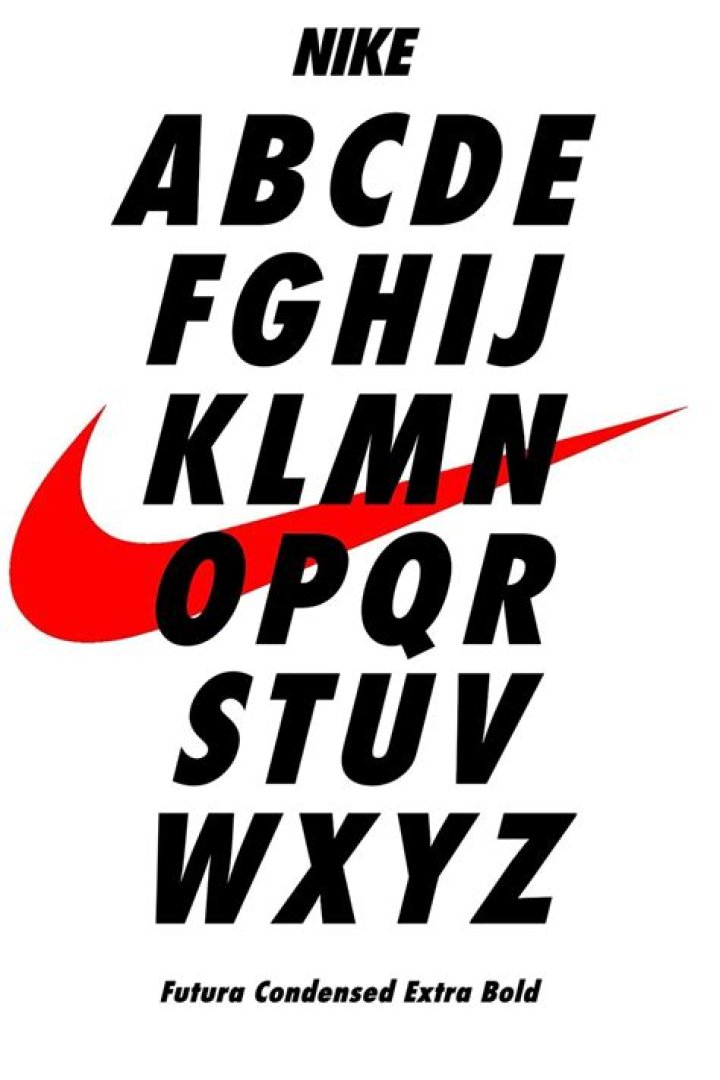
What is the Nike logo font called?
Andrew Thornton What is the Nike logo font called?
About Nike Font Everyone is looking at this because of the attractiveness of the logo of Nike. The font used in the logo is Futura Extra Bold Condensed. It is a font of the Futura font family which is a geometric Sans serif font. Paul Renner designed this and published it through Linotype in 1936.
What font is similar to the Nike font?
The font used for the logo of Nike is very similar to Khula Extrabold Font. Because when you look at its logo texture then there is a bold sans serif font is used.
What font does Nike use on shirts?
Futura font
Nike uses a variation of the Futura font in its logo and on its t-shirts. Nike uses a variation of the Futura font in its logo and on its t-shirts. Nike uses a variation of the Futura font in its logo and on its t-shirts.
What font is the closest to Futura?
Font Similar to Futura
- Liber.
- Bergen Sans.
- Bw Modelica.
- Konnect.
- Regime Grotesk.
- Lorin.
- Noir Pro.
- Bw Modelica Condensed.
What does Futura font look like?
Derived entirely from geometric forms (near-perfect circles, triangles and squares), with strokes of near-even weight and contrast and distinctively tall lowercase letters that rise even above its capitals, Futura looks like efficiency itself: clean, standardized, legible, stylish without any overt “style.”
What font is vintage Nike?
Though the Nike logo is a modified version Futura Bold Condensed Oblique, “Just Do It,” uses an un-modified version, and Absolut Vodka and Dolce and Gabbana are both using versions of Futura as well. This font is in an incredible amount of logo’s so it wasn’t hard to find some solid one’s here. You can buy Futura here.
What’s the type of font that Nike uses?
, full-time admirer of type They use an exclusive corporate font that looks like Futura extra bold condensed. Before the corporate font, they probably just used Futura Extra bold condensed. It’s their own font called ‘One Nike Currency’, similar to ‘Futura Extra Bold Condensed’ .
Is the Nike logo a symbol or a slogan?
While the Nike logo is a symbol, the designers often place the Just Do It slogan at the logo’s top. At times you will also see the company name appearing on the logo. The text font used for the writing is elegant and the name always appears in bold.
This is logo typeface is also known as Nike Font that is a great contribution by Bauer Type Foundry in 1928 as a simplistic clean font, then it was redesigned in 1936 by Paul Renner. The whole Futura font family includes 22 styles which make it contented to choose a functioning font for any designer.
What font is similar to Nike?
The “NIKE” lettering in the Nike logo is custom created, however it is widely agreed that Futura fonts are most similar. It has been commented that with a very small amount of lettering, this font can be made to look exactly like the Nike logo.
What is the font that Nike uses?
The font used for the “NIKE” lettering appearing above the swoosh is an italicized Impact, a sans serif typeface created by Geoffrey Lee in 1965, which is a commercial font and you can purchase it here.